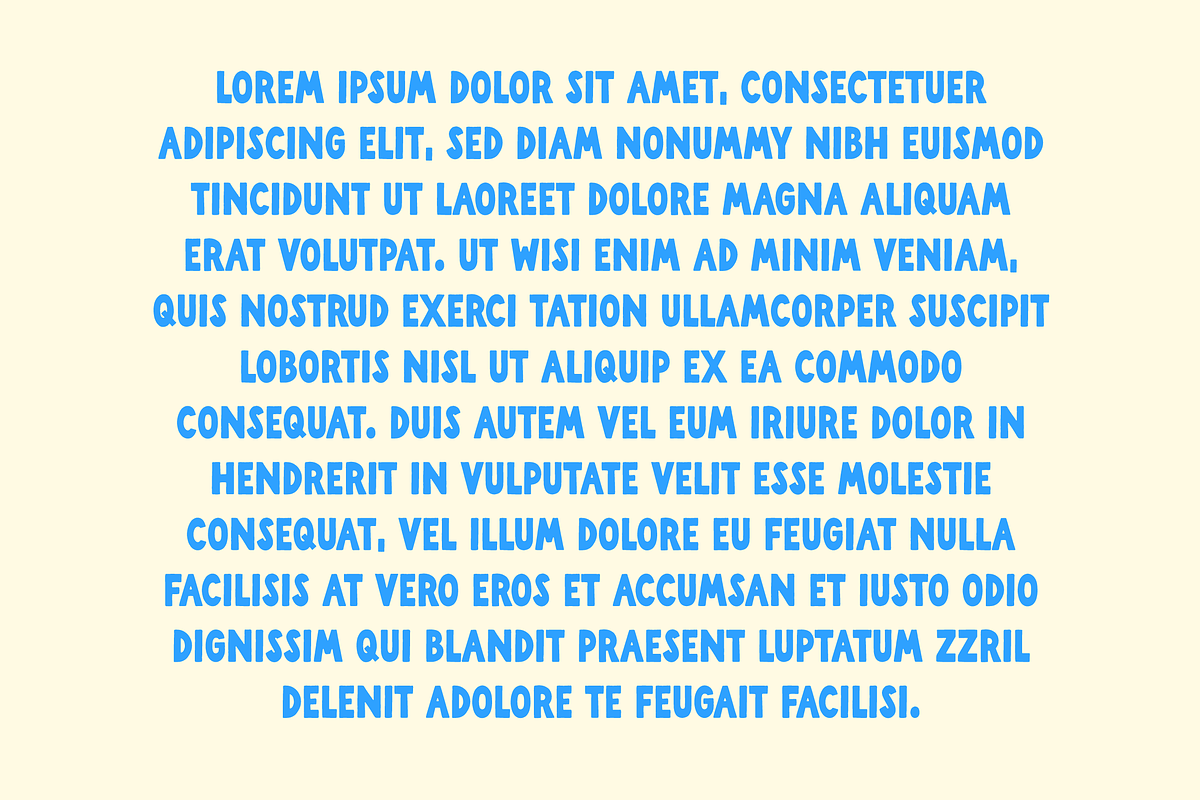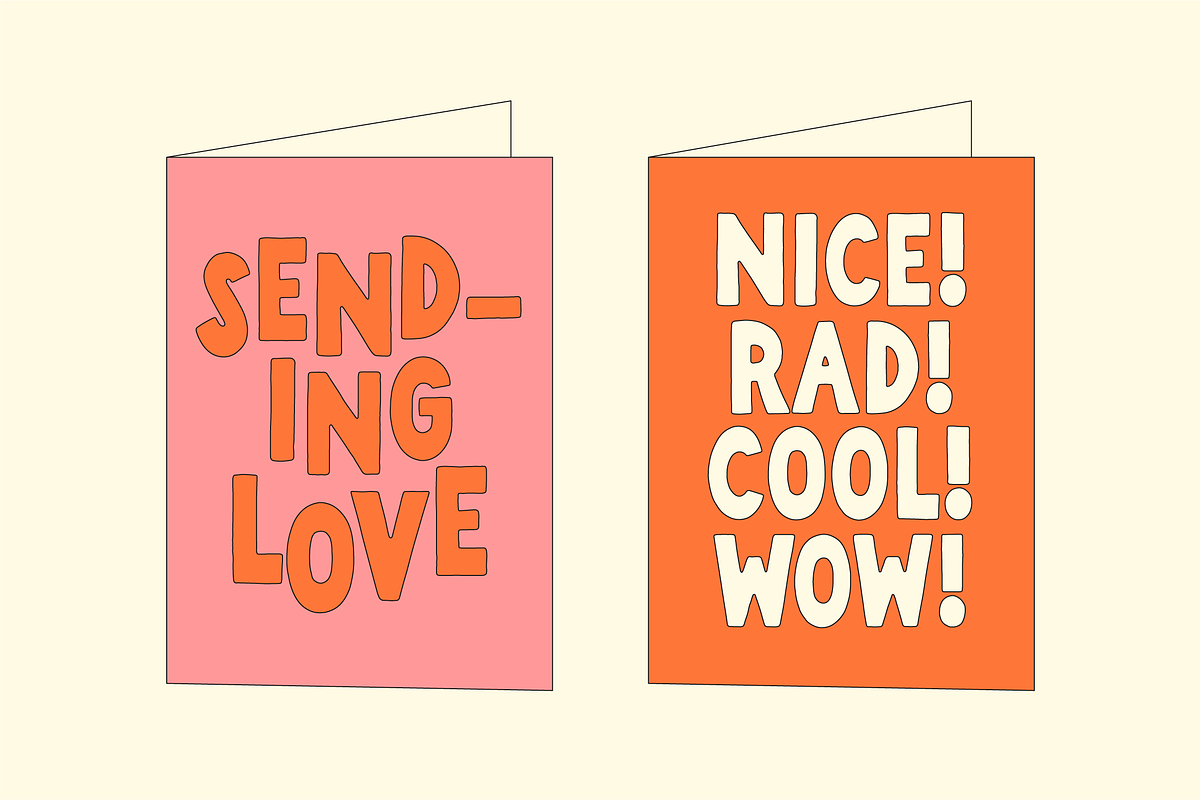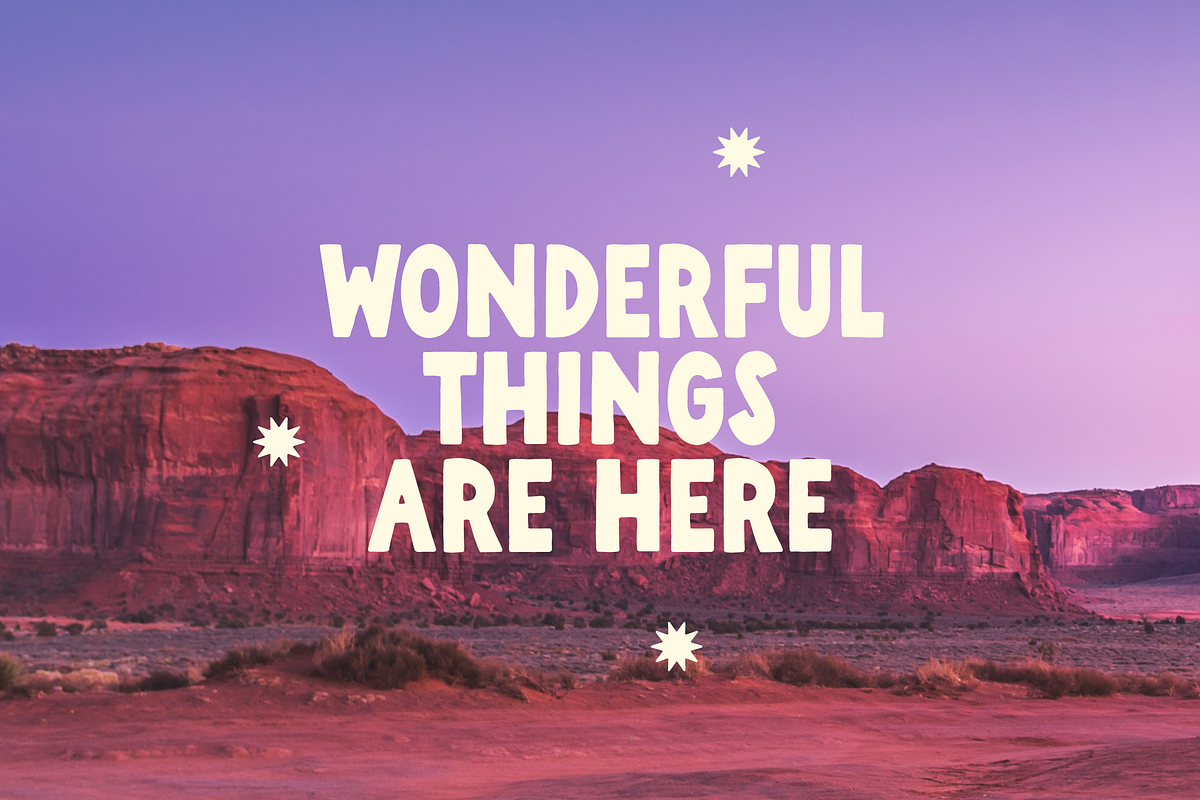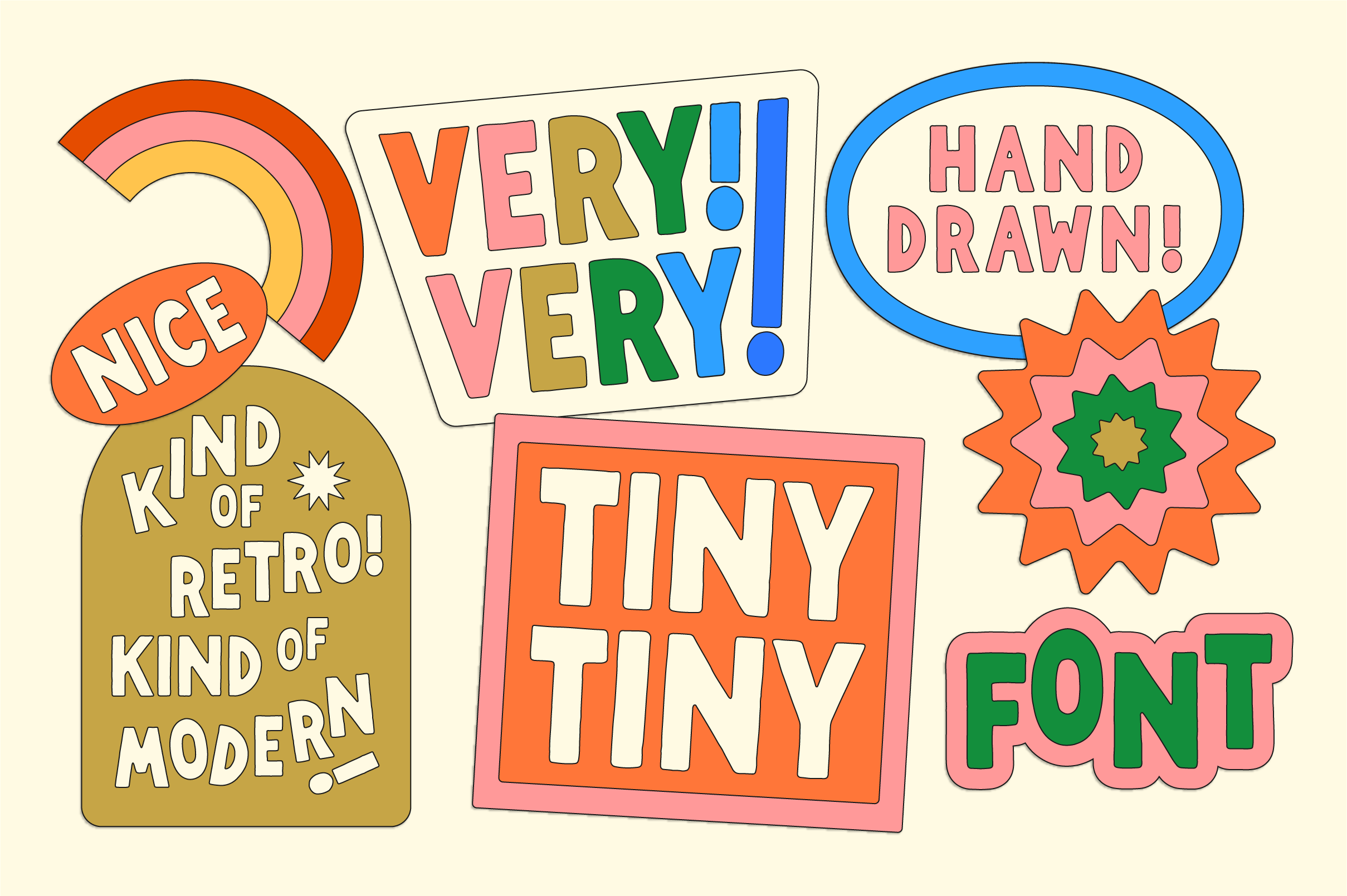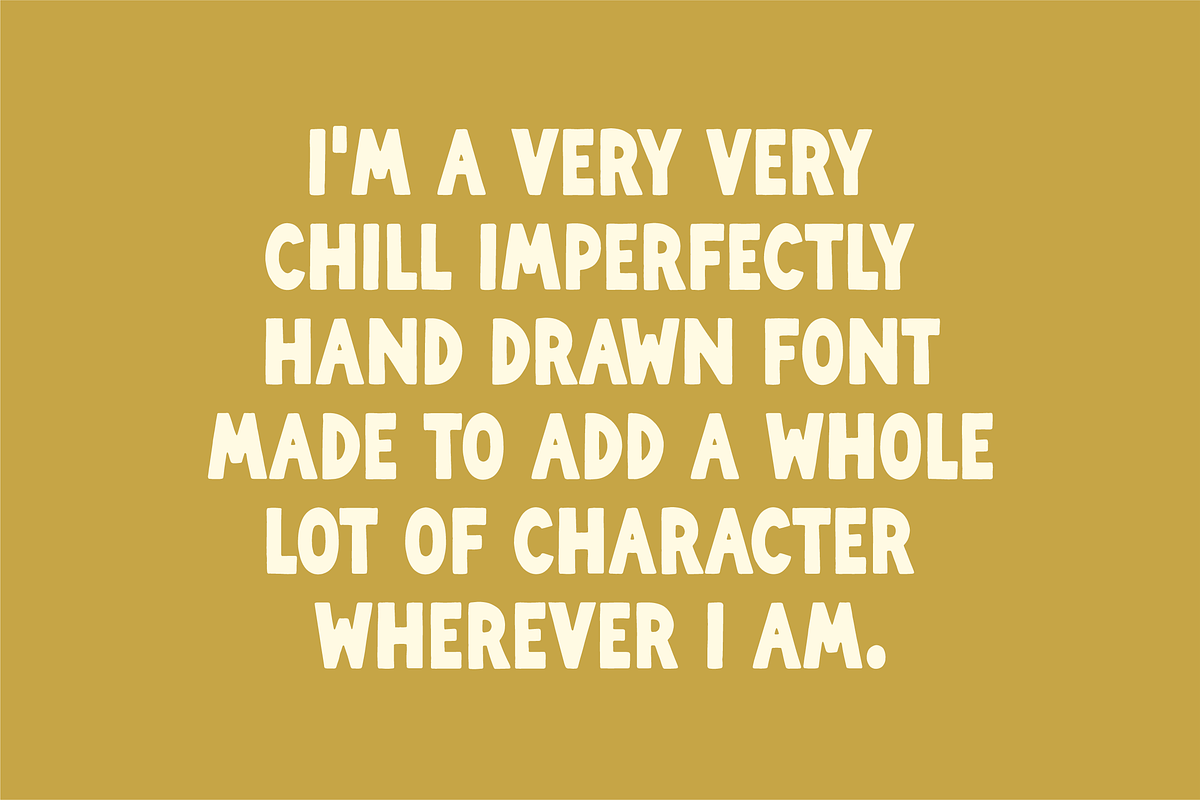
Tiny Tiny! A Chill Hand Drawn Font!
Very Very Tiny Tiny! A Chill Hand Drawn Font! Part retro, part modern, this hand-lettered font was created to give you a hand made look. Each character has an alternate for extra hand made goodness! Looks great as a logo font or used for display, quotes, art, and a handmade touch.
What's in the font? Uppercase Letters A-Z! Numbers! Symbols! Punctuation! An Alternate For Each Character! (see slides!)